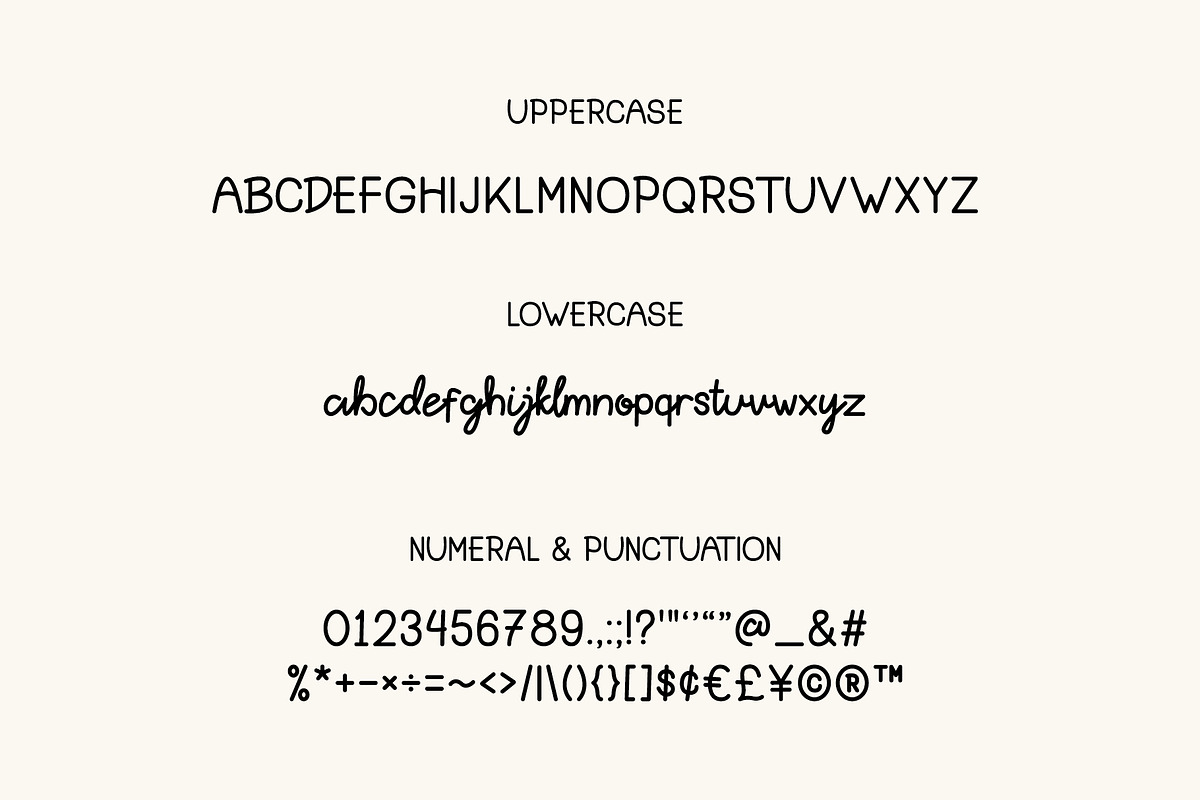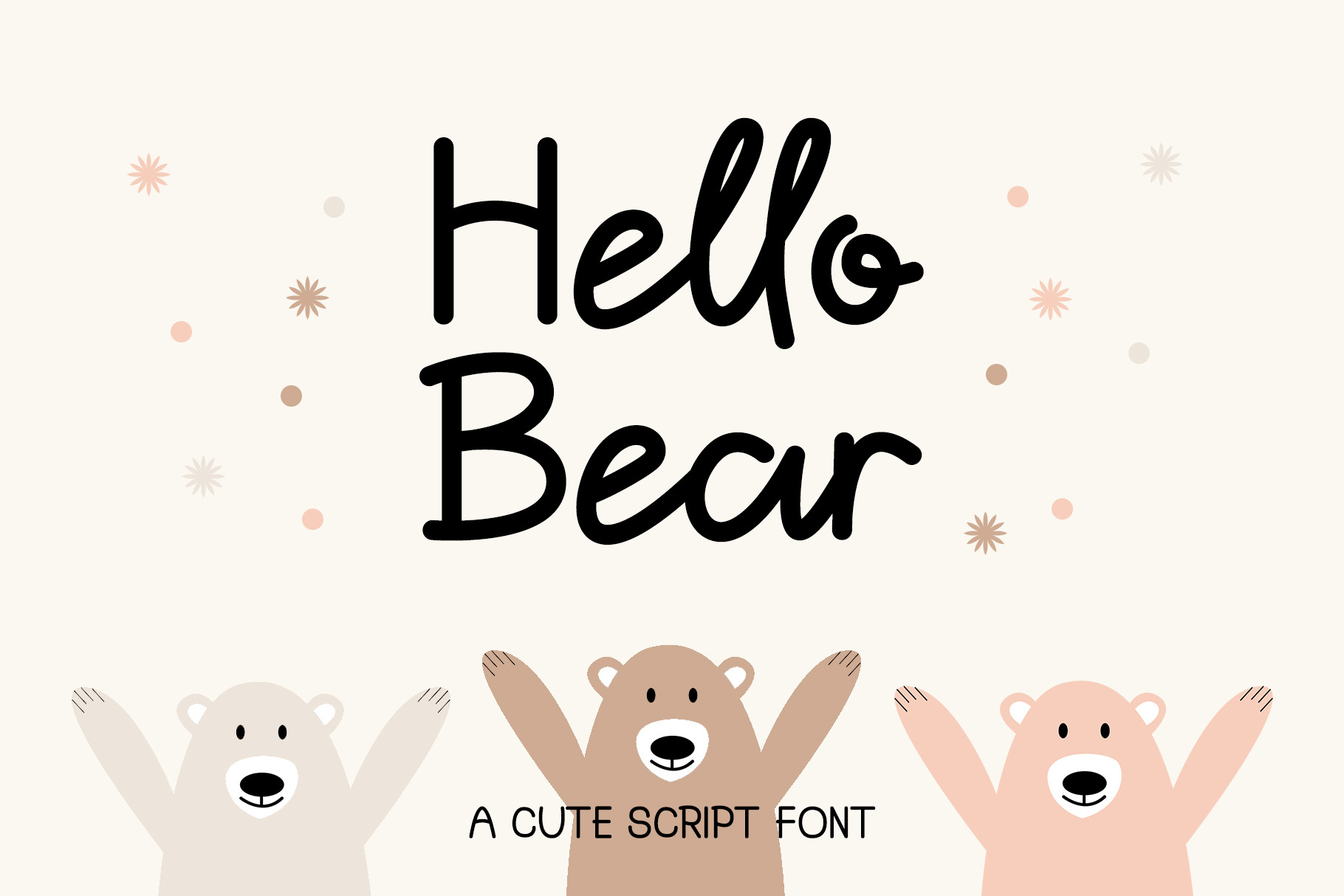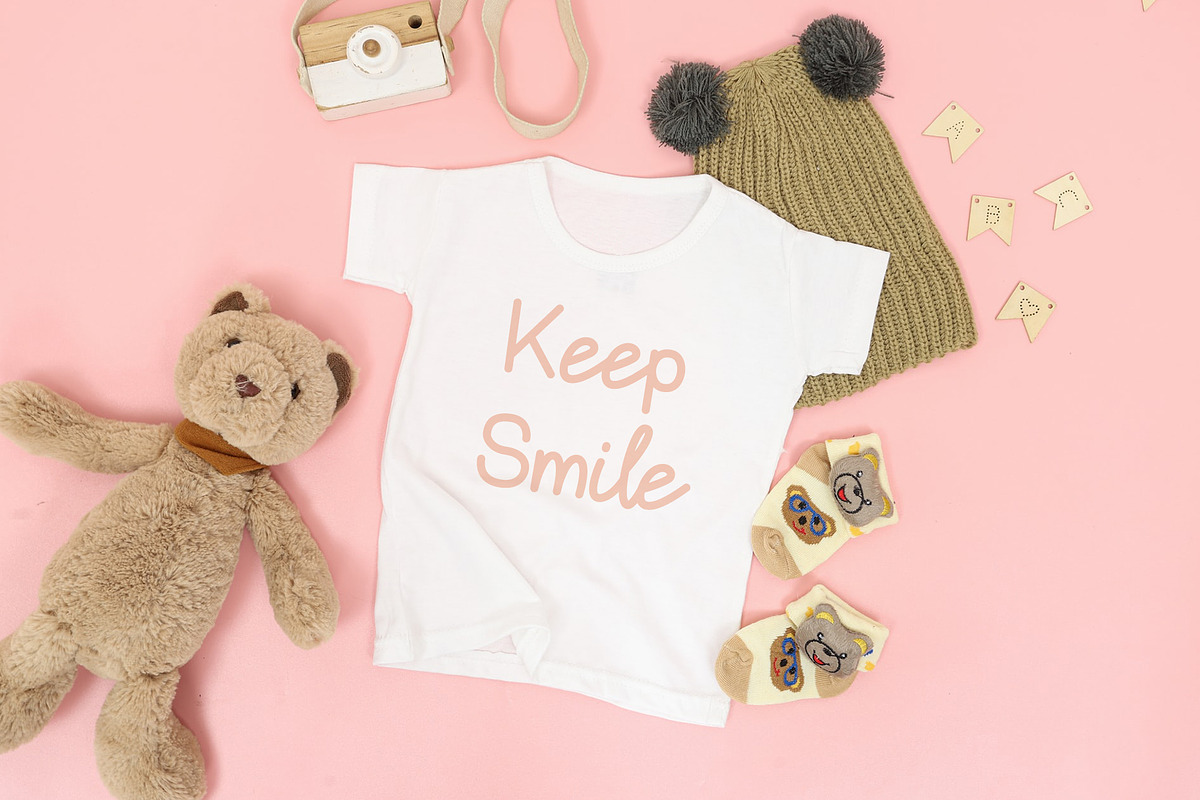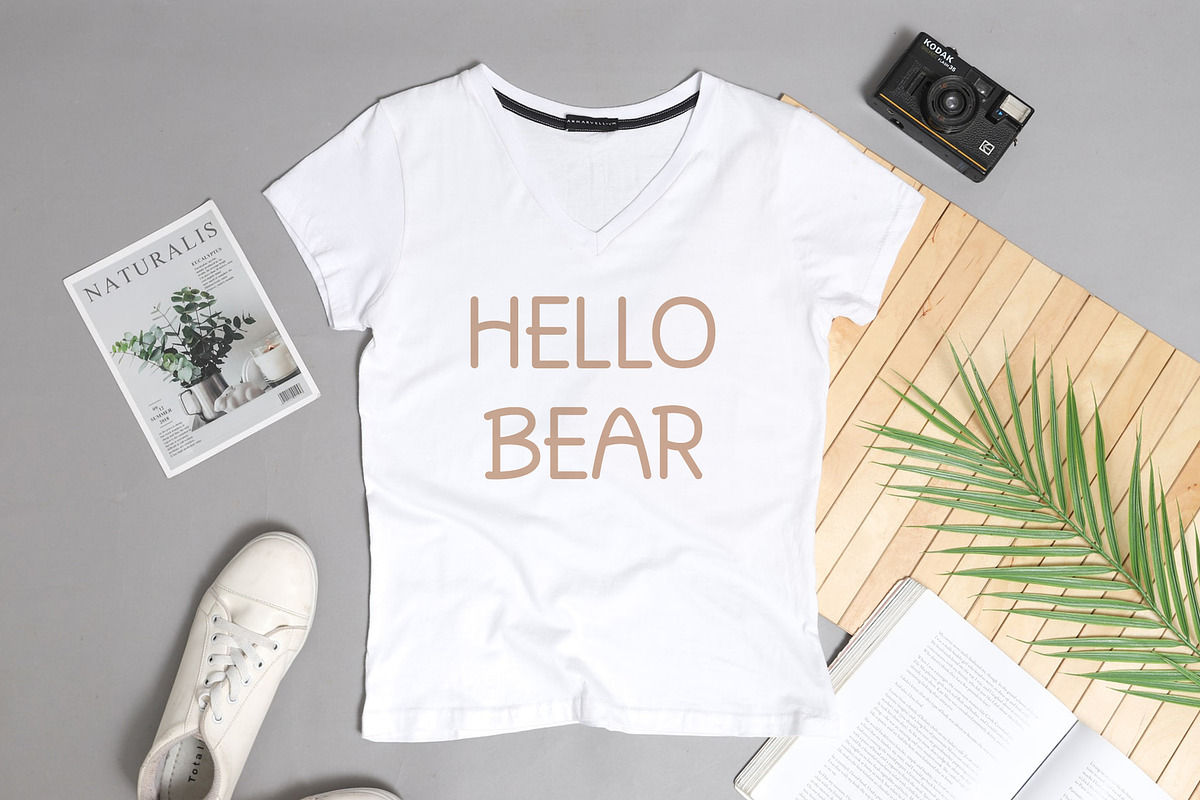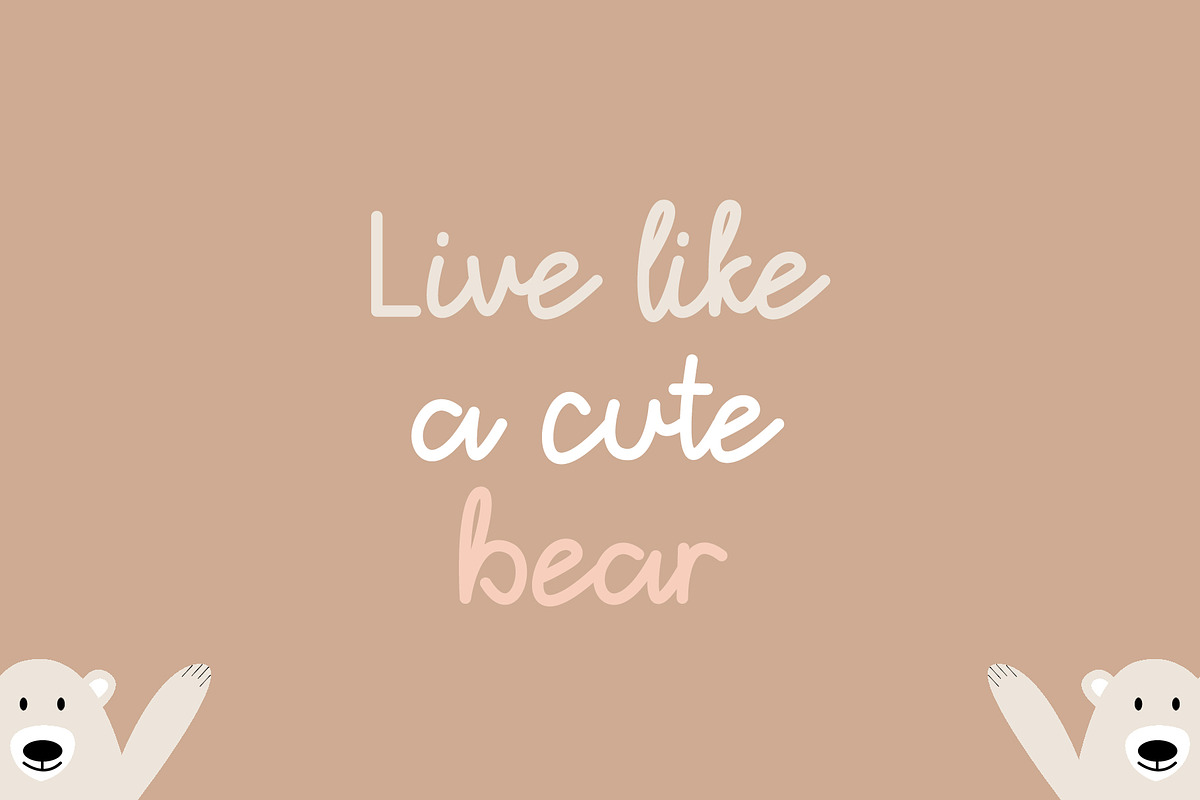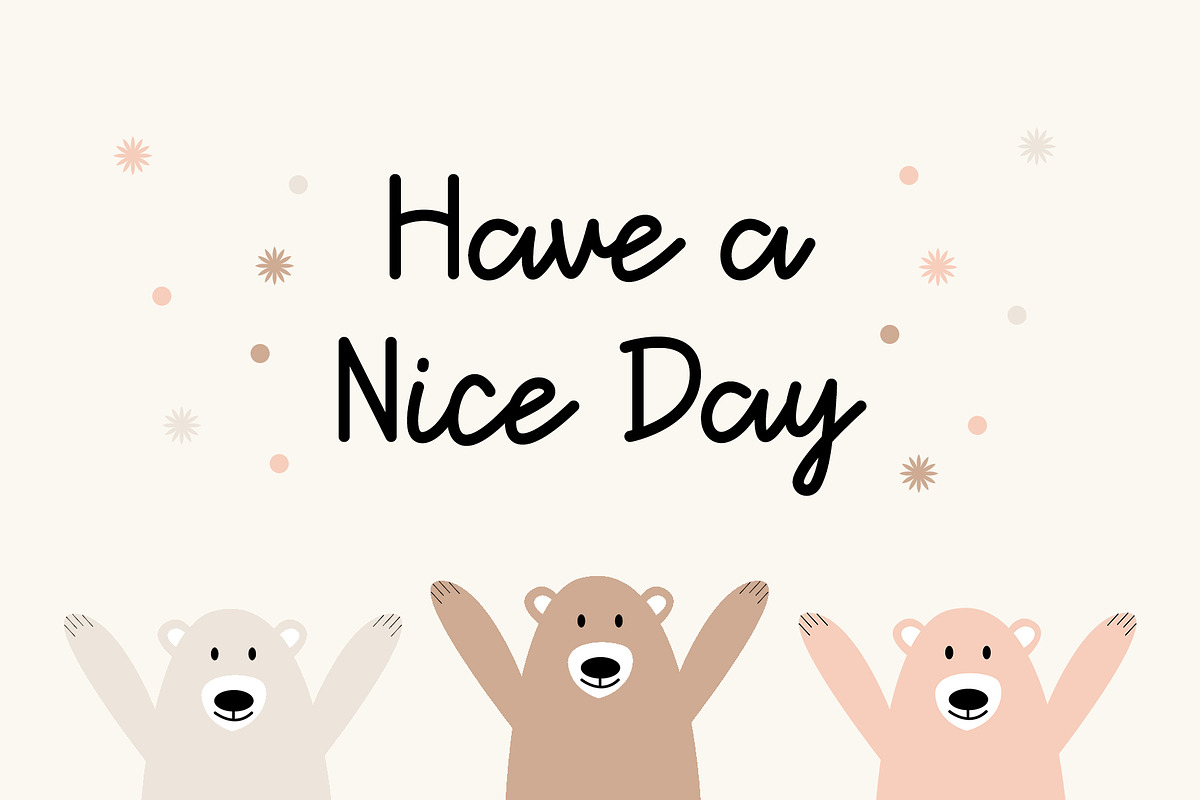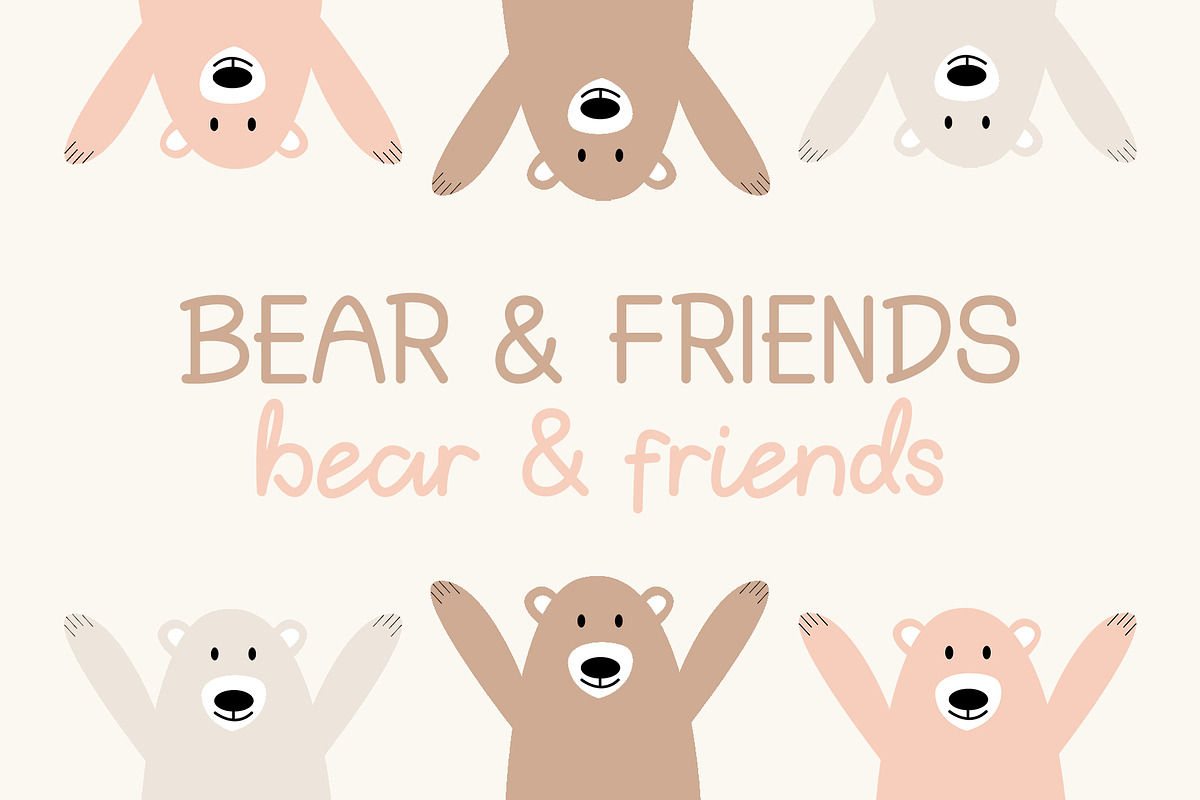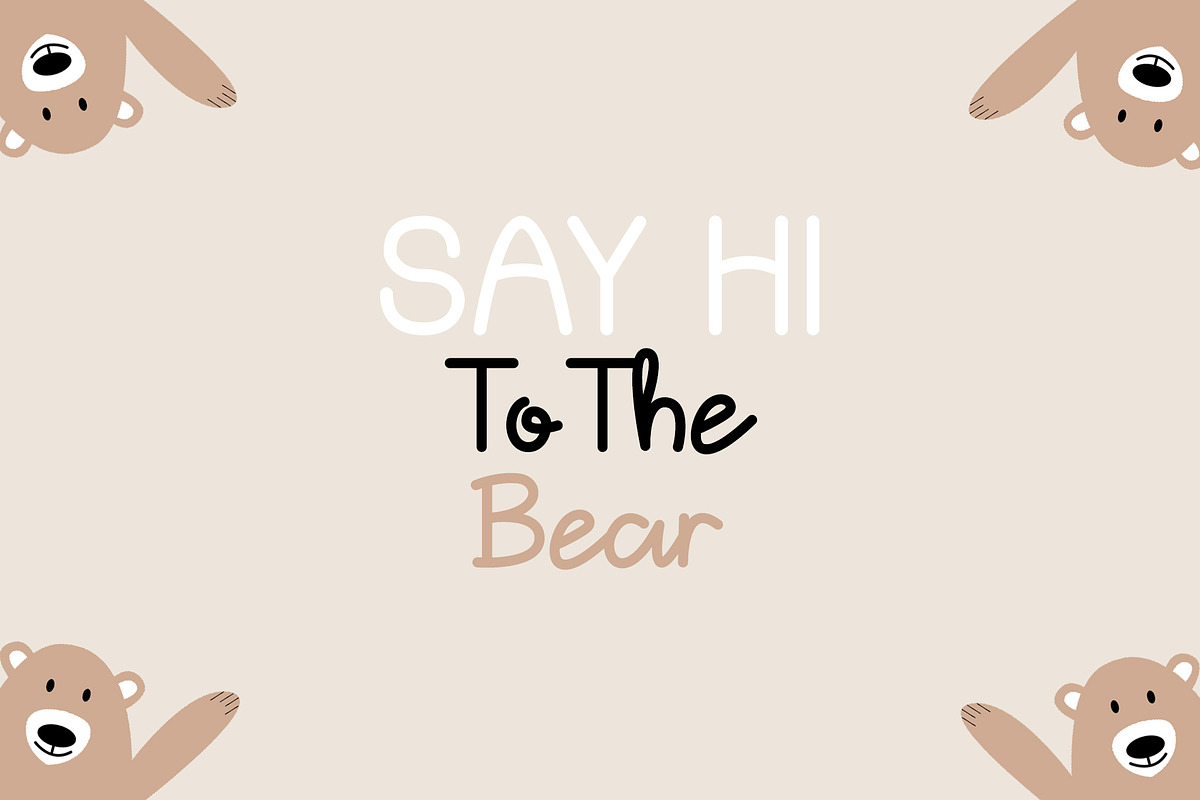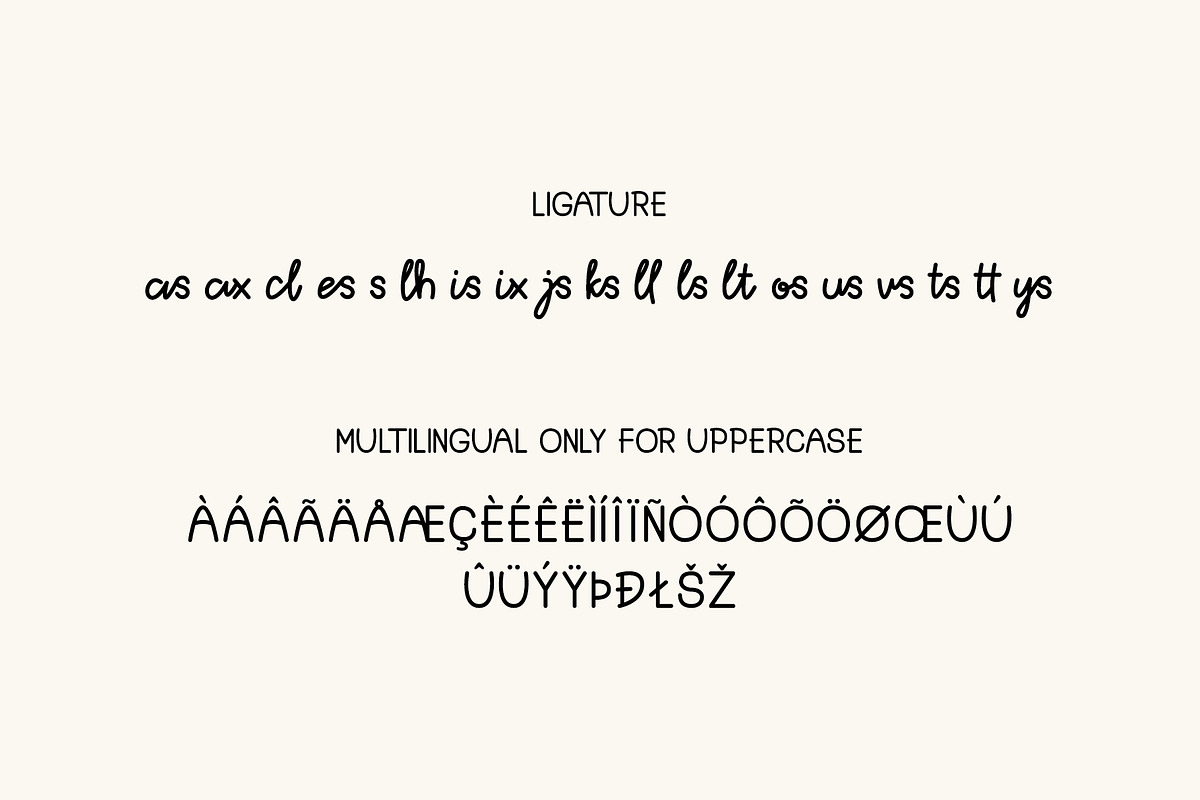
Hello Bear | Cute Script Font
Hi guys. How are you? this time I will introduce my newest font called "Hello Bear".
Hello Bear is a script and handwriting font that is very suitable for invitation cards, illustrations, quotes, branding, logos, book covers, children's clothes, packaging, and many others.